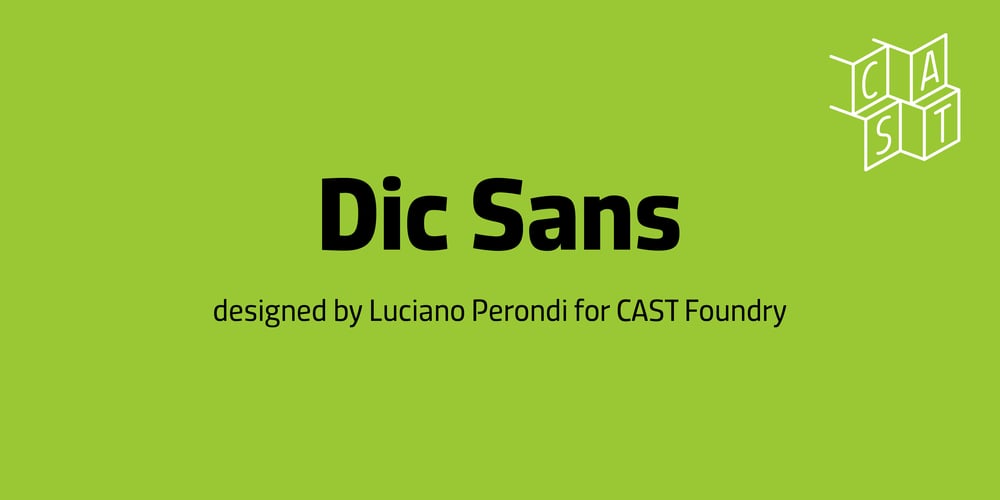
Dic Sans
Dic Sans font
Dic Sans Font Family was designed by Luciano Perondi and published by CAST. Dic Sans contains 10 styles and family package options. DicSans is a square sans-serif typeface, inspired by Aldo Novarese’s Eurostile, it was meant as a sort of contemporary “open” Eurostile. It is a semi-custom font, designed and expanded according to costumers’ requests, since 2004 up to 2013. For this reason it has many glyph variants (up to three variants per lowercase glyphs and numbers, special smallcaps etc.) and wide language coverage.